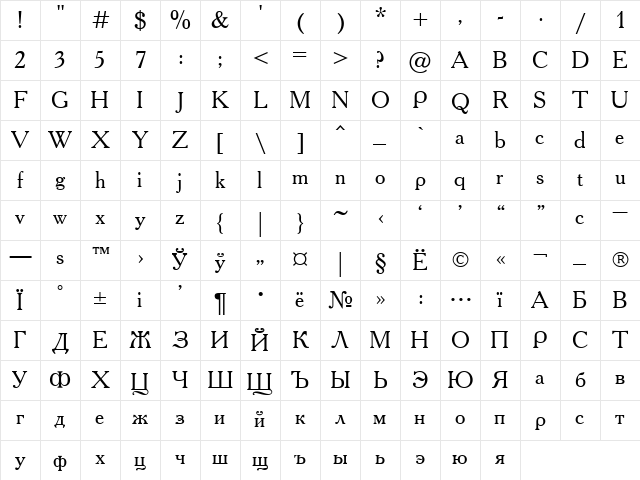
Academia Plain
Design Context for Academia
Academia is a composed and adaptable typeface that performs quietly and consistently across a wide range of design contexts.